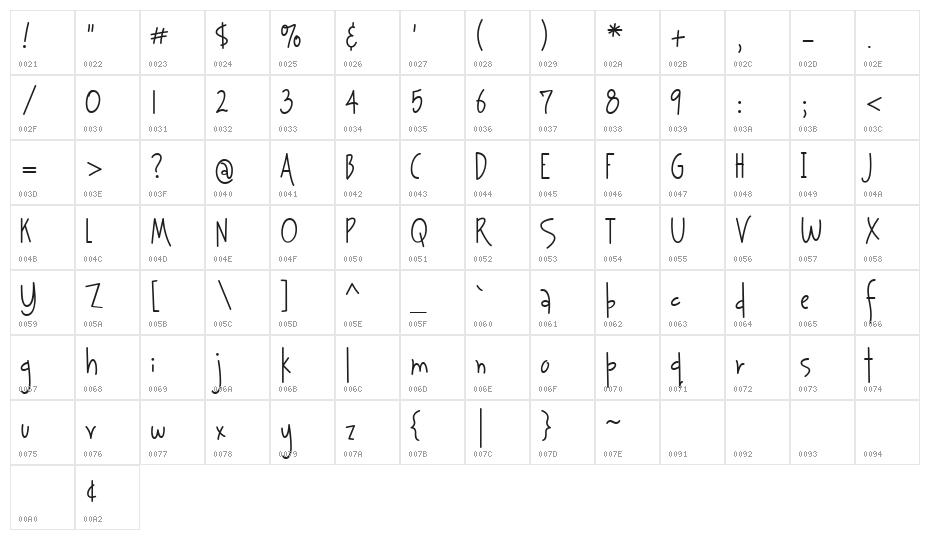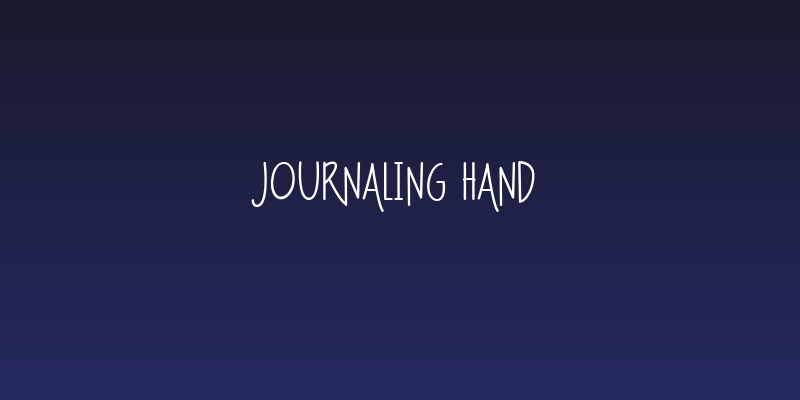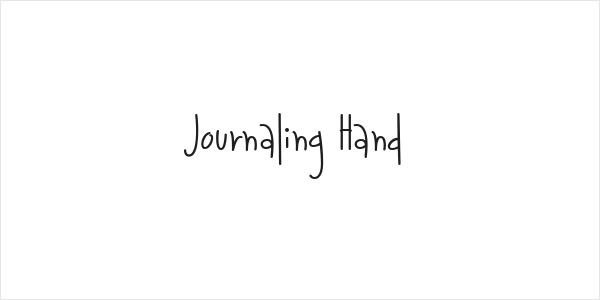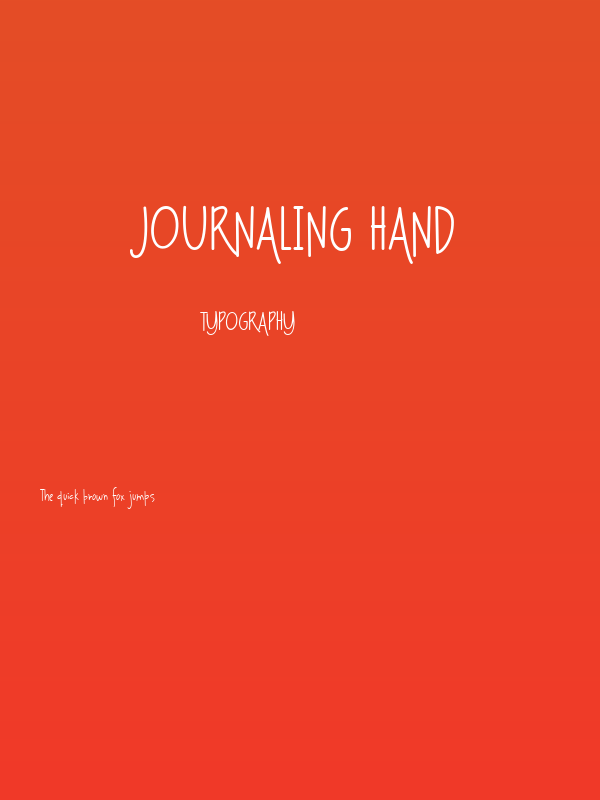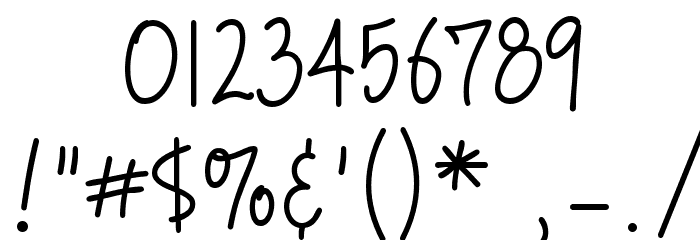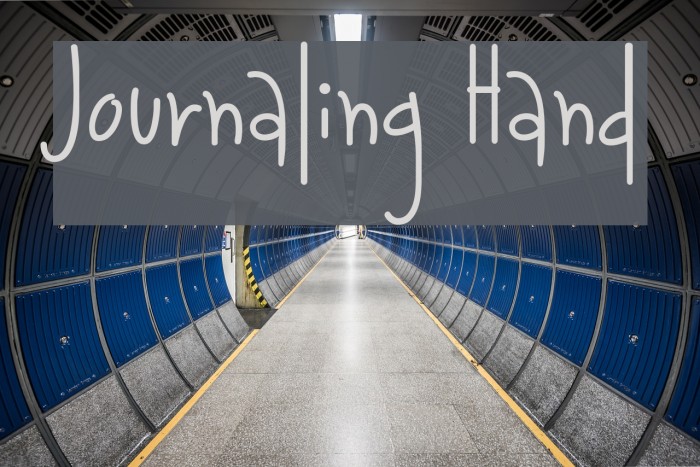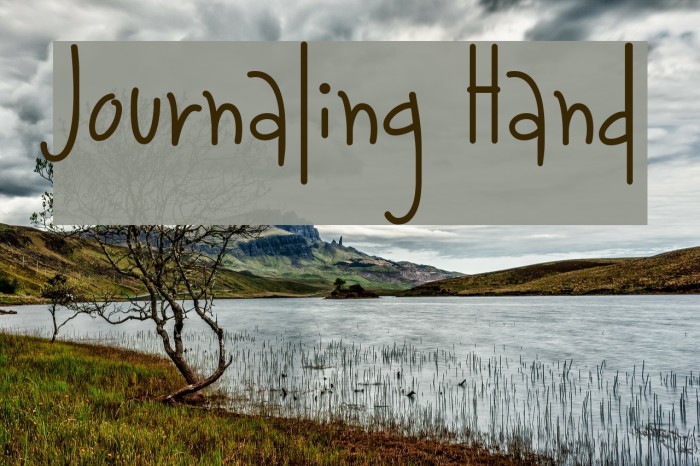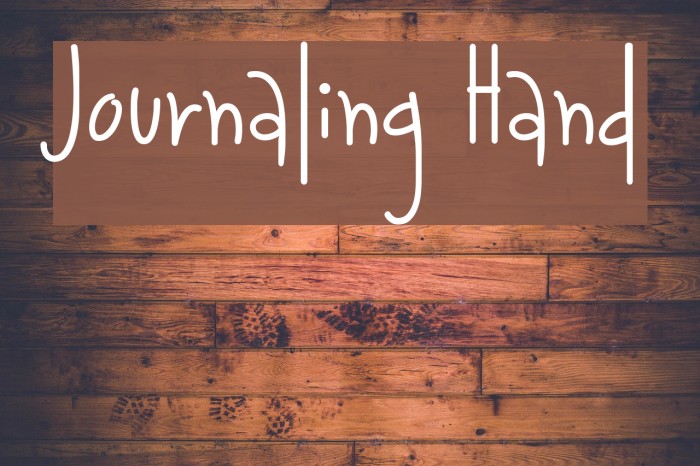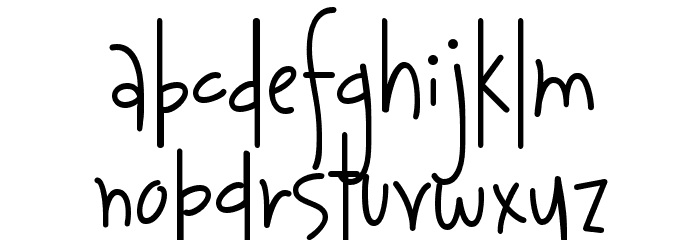
Journaling Hand Font
Journaling Hand Description
This font exudes a casual and friendly handwritten style, characterized by its smooth, flowing lines and slightly irregular shapes that mimic natural handwriting. The letters are tall and slender, with a playful touch that adds personality to the text. The uppercase letters maintain a consistent height, while the lowercase letters vary slightly, enhancing the handwritten feel. The numerals and special characters are crafted with the same attention to detail, ensuring a cohesive look across all elements. This font is perfect for projects that require a personal touch, such as journaling, scrapbooking, or any creative endeavor where a human element is desired.
| Overall Style | Casual, Friendly |
| Use Case | Headlines, Personal notes, Creative projects |
| Proposed Projects | Ideal for journaling, scrapbooking, personal notes, greeting cards, and creative projects. |